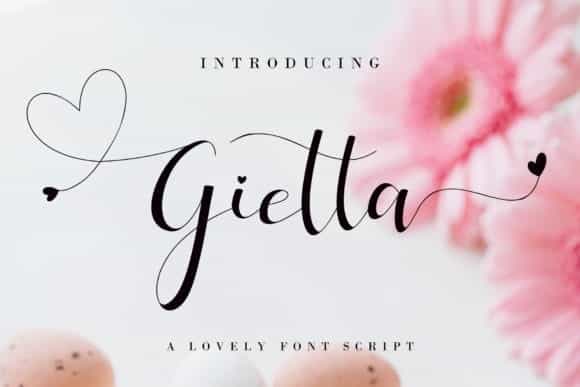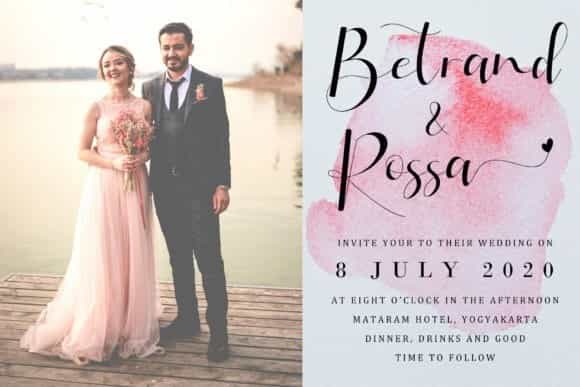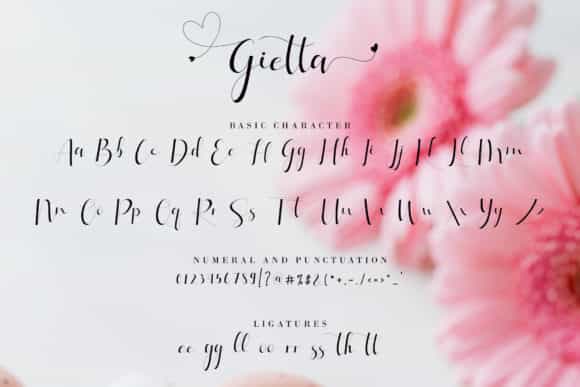
Gietta is a modern calligraphy font with special heart characters. Its delightful touch will melt your heart making you want to publish your own wedding invitations on a beautiful stationery art piece and print or hand-out cute cards without waiting.